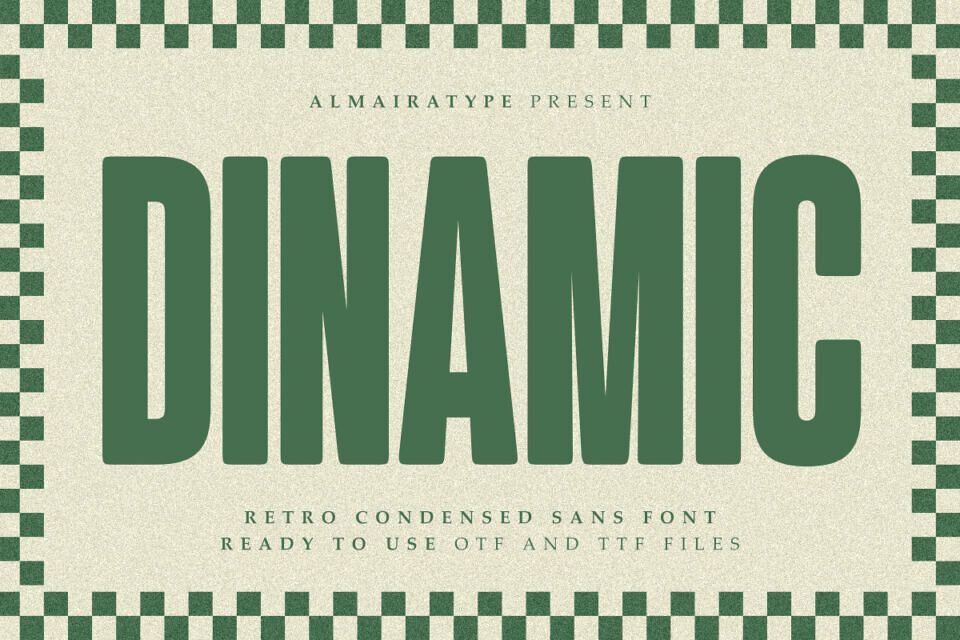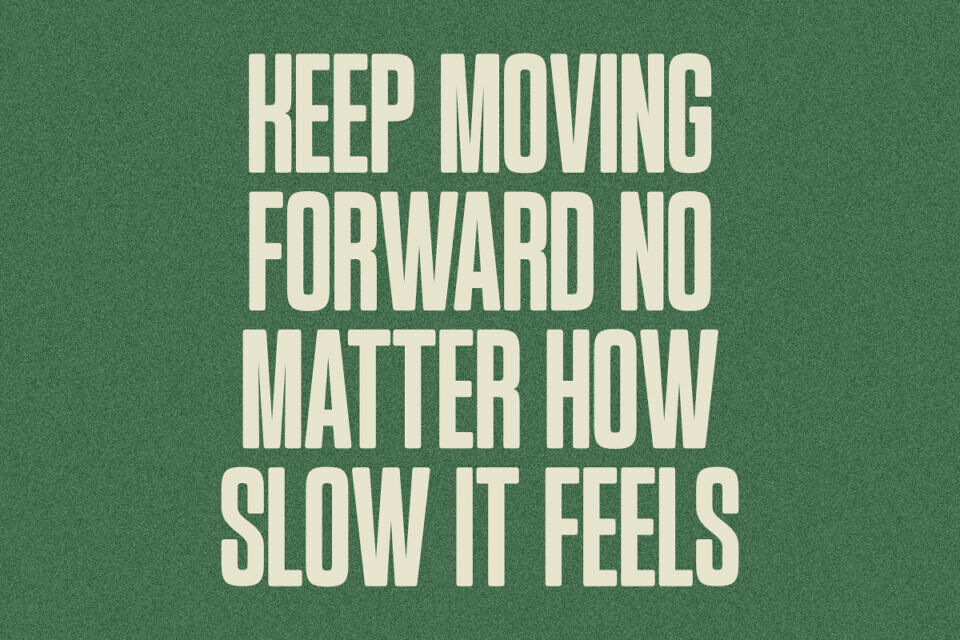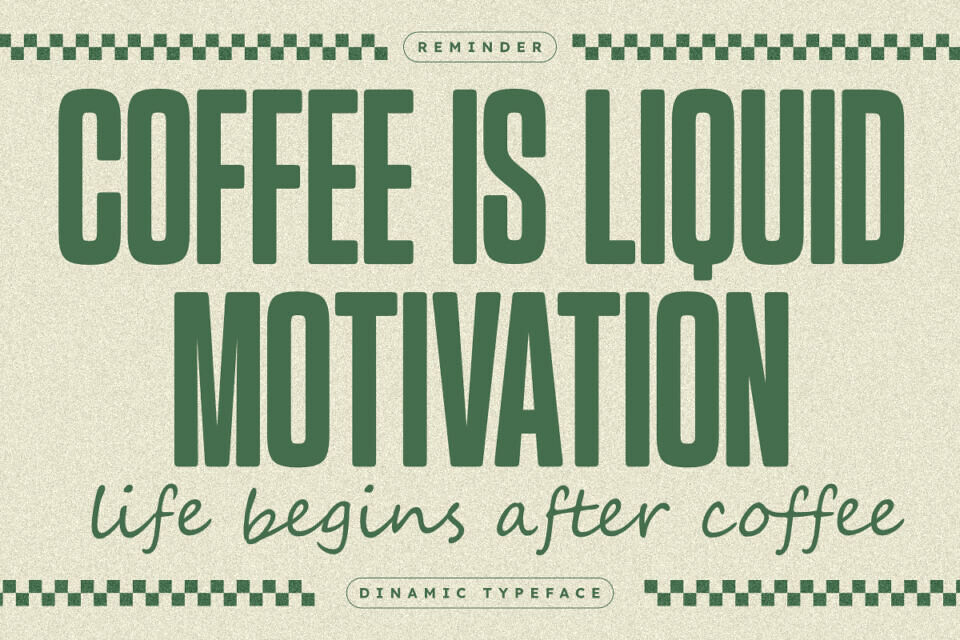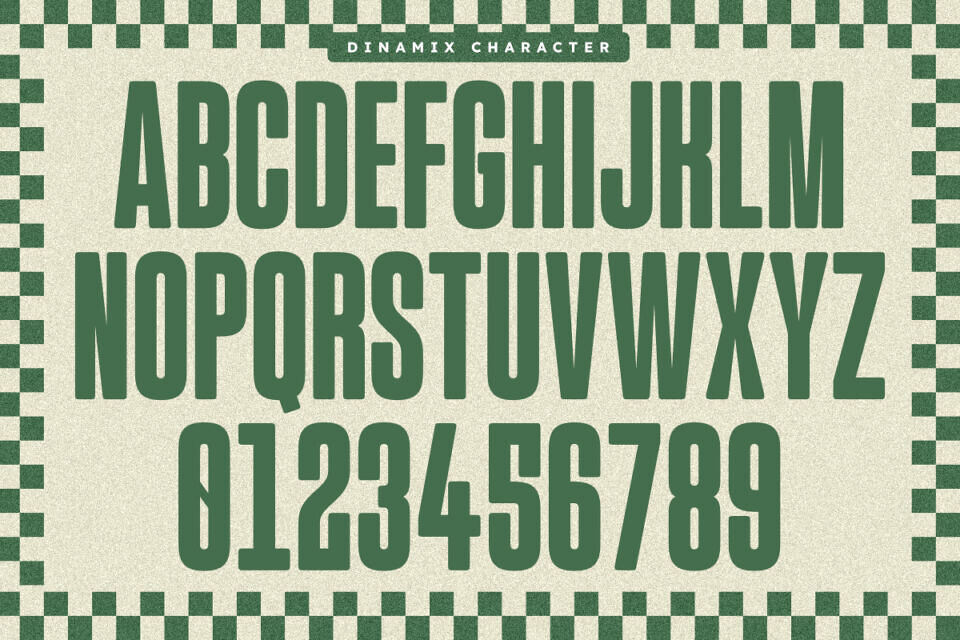
Dinamic is a bold and versatile retro condensed sans font that masterfully blends vintage nostalgic charm with a clean, modern minimalist aesthetic. Designed specifically for high-impact visual storytelling, its tall and solid structure commands attention while maintaining a sleek and professional elegance.
Whether you are creating trendy apparel designs, social media graphics, or eye-catching logos, Dinamic provides excellent readability and a unique, stylish flair. Its smooth, slightly rounded edges give it a warm, approachable feel reminiscent of classic 70s and 80s typography, making it an essential asset for any creative toolkit.